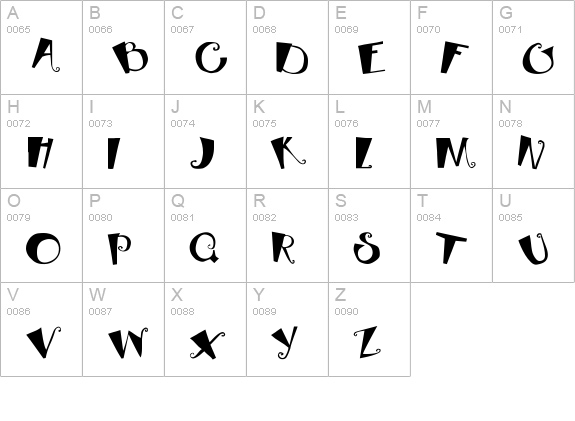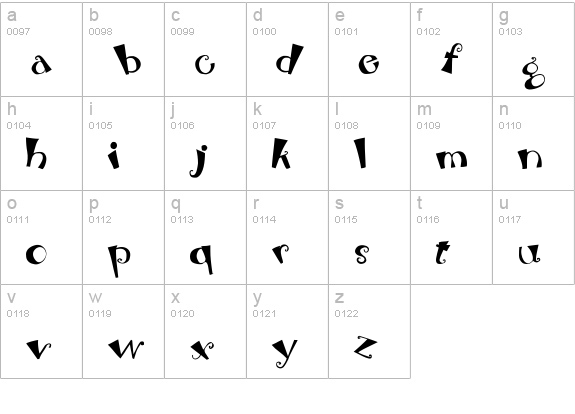
Beebop font is a fun and quirky typeface that exudes a playful energy perfect for a variety of design projects. With its unique shapes and whimsical charm, Beebop adds a touch of personality to any text it graces. This free font is a delightful choice for creative works such as posters, invitations, branding, and more. Its bold strokes and rounded edges give it a friendly and approachable feel, making it a versatile option for both digital and print designs. Embrace the creativity and joy that Beebop font brings to your projects today! Download this free font at FontsMarket.com and let your imagination soar.